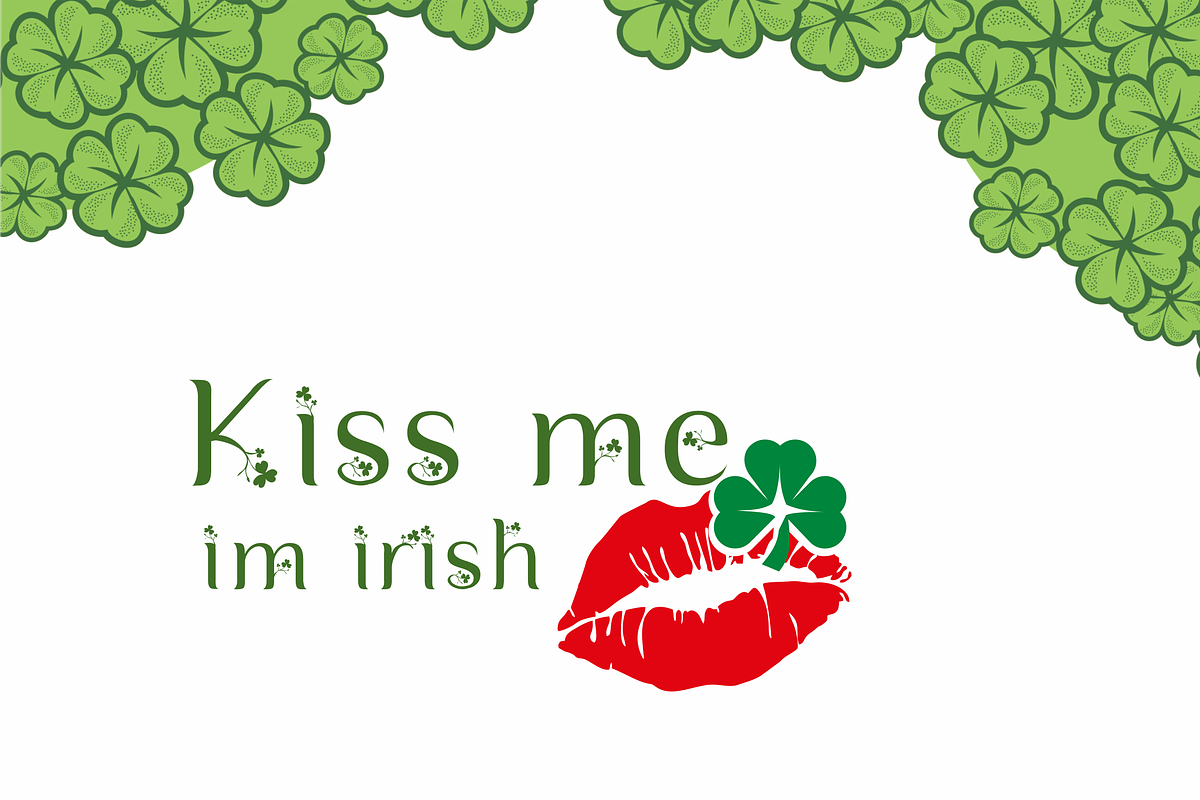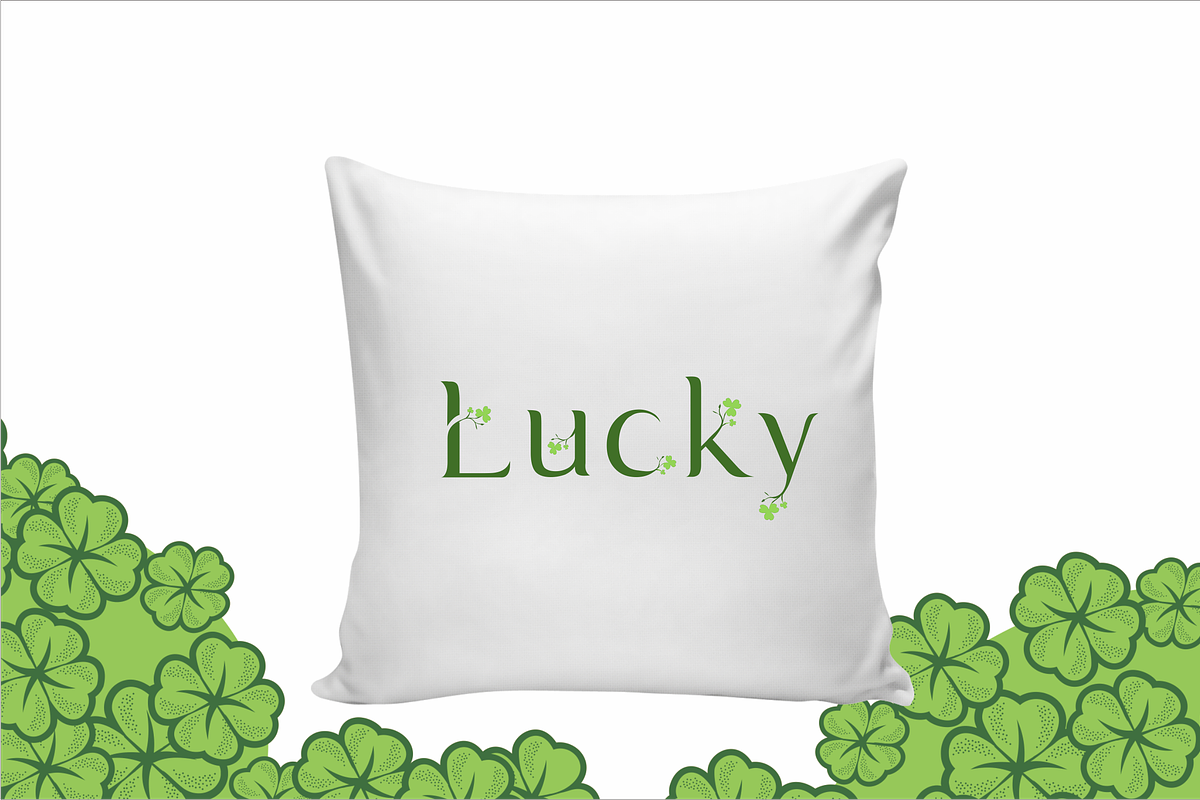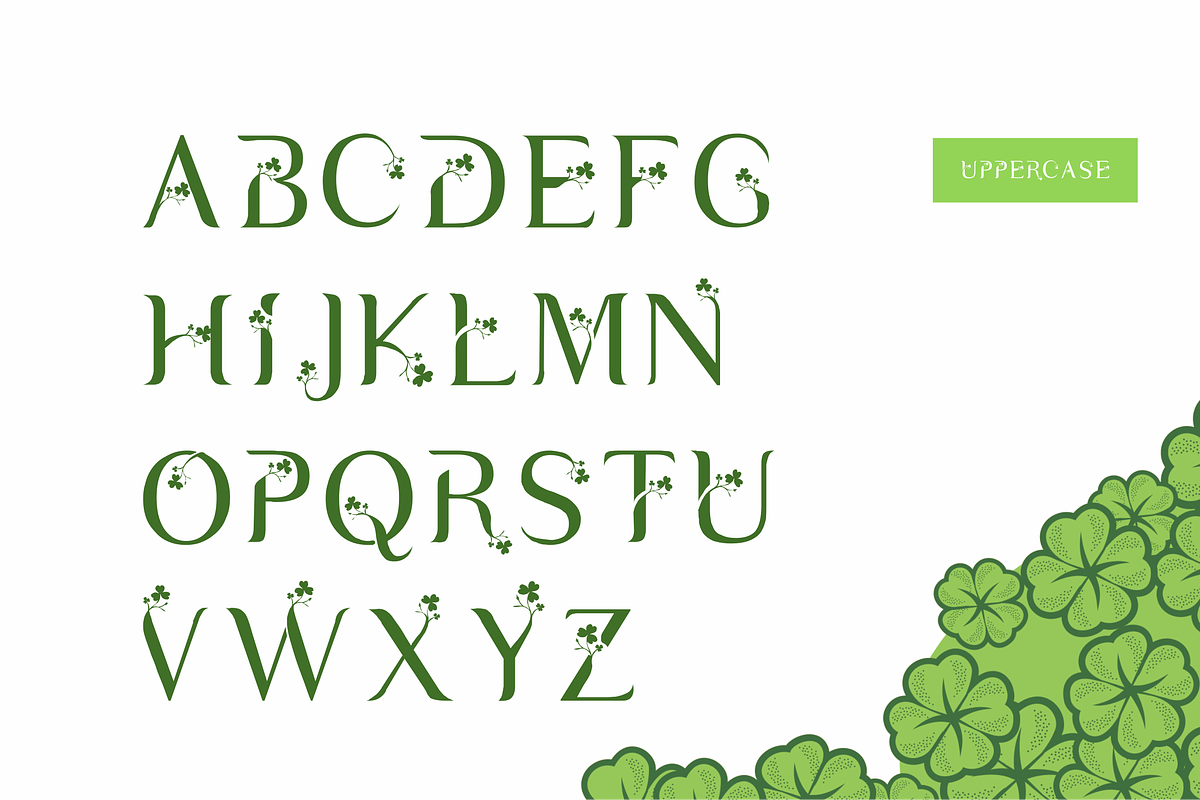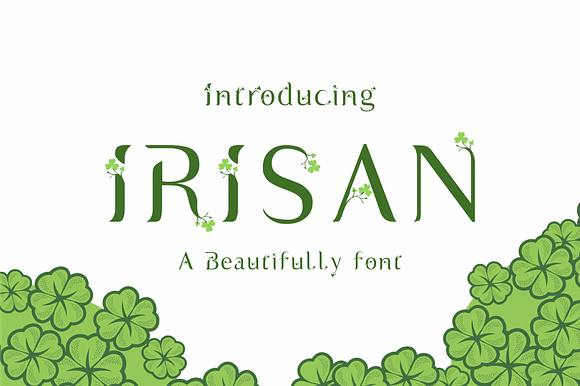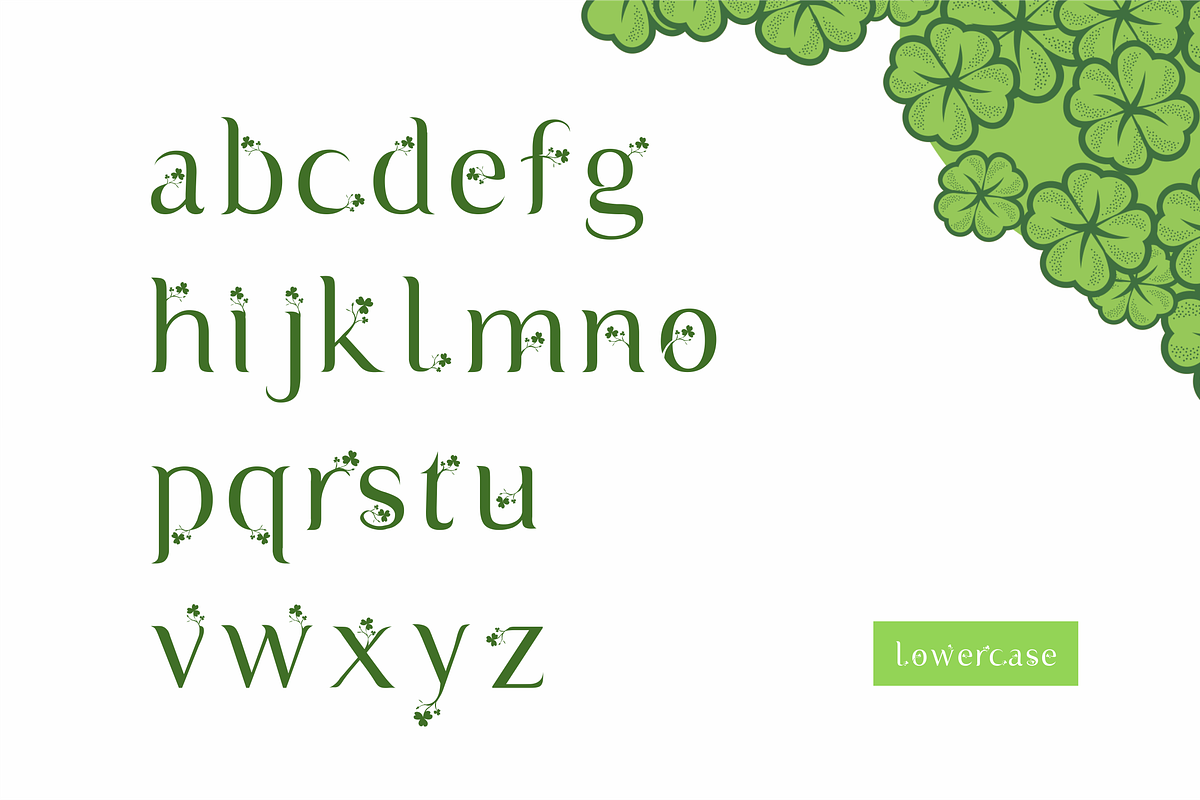
Irisan Font ( a Beatifully Font)
Irisan Decorative in Uppercase and lowercase letters so you'll be able to make your messages super-unique, logo, card, invitation for special event or in patrick day.
Irisan Font ( a Beatifully Font) by Akdesain fits naturally into Branding, posters, packaging, typography.